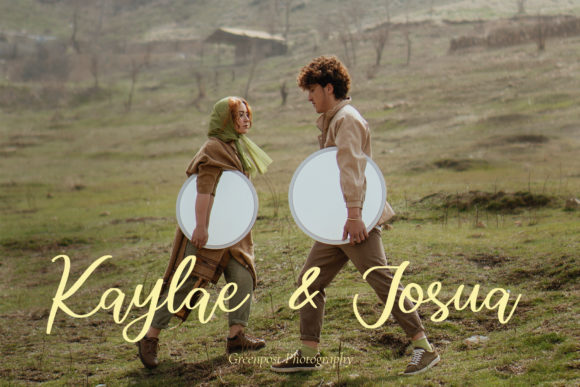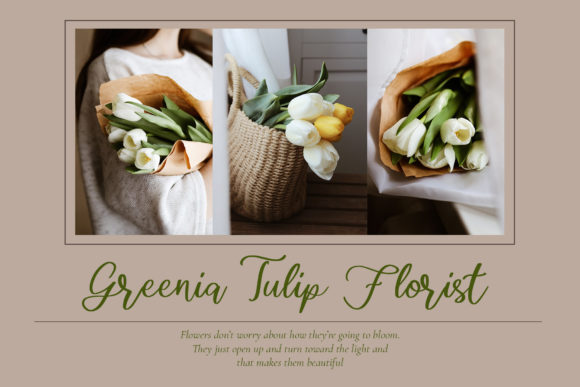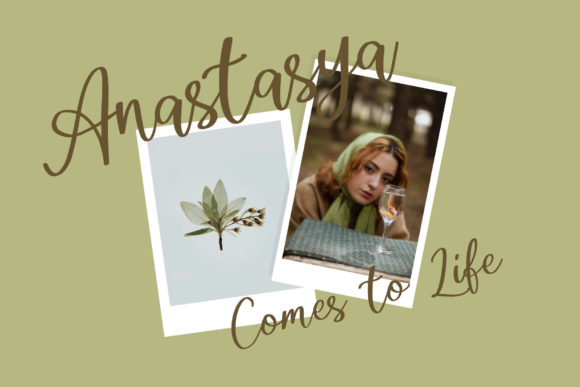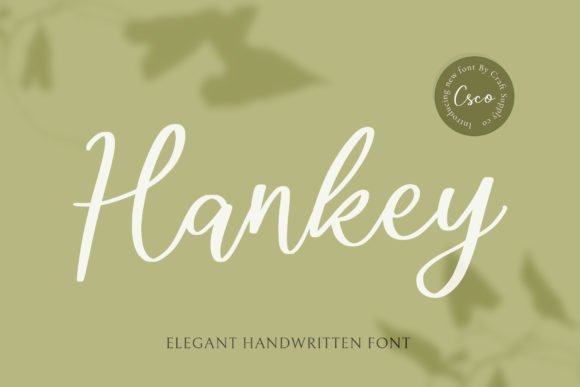
Introduction to Hankey Font
Hankey an equally beautiful and bold handwritten font that’s great for delivering any message with confidence, authenticity and charm.
This font is PUA encoded which means you can access all of the glyphs and swashes with ease .
Key Features of Hankey Font
Why Choose Hankey Font?